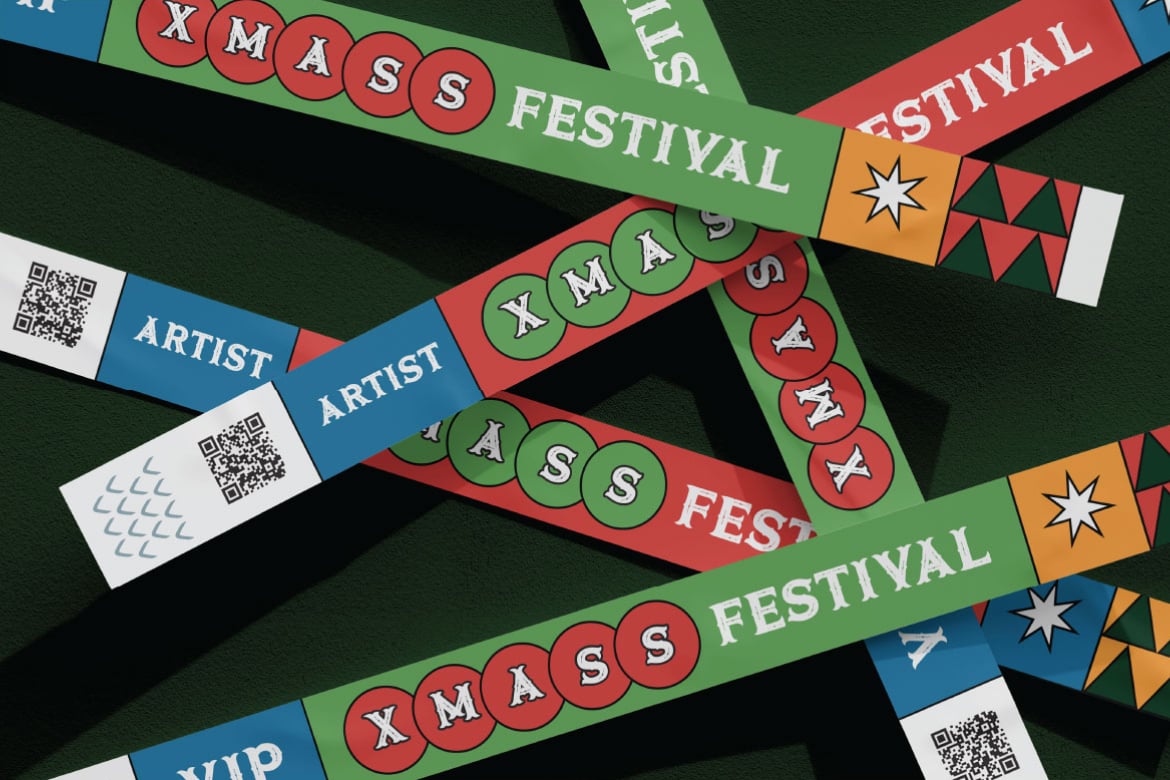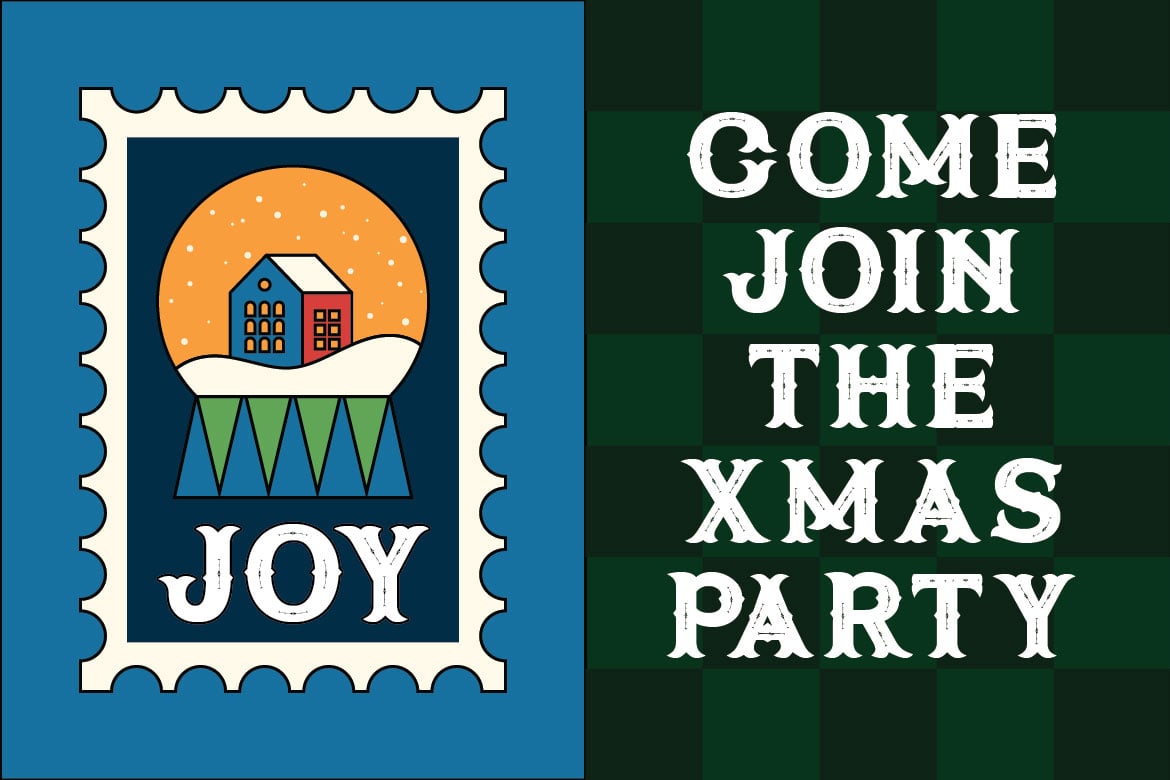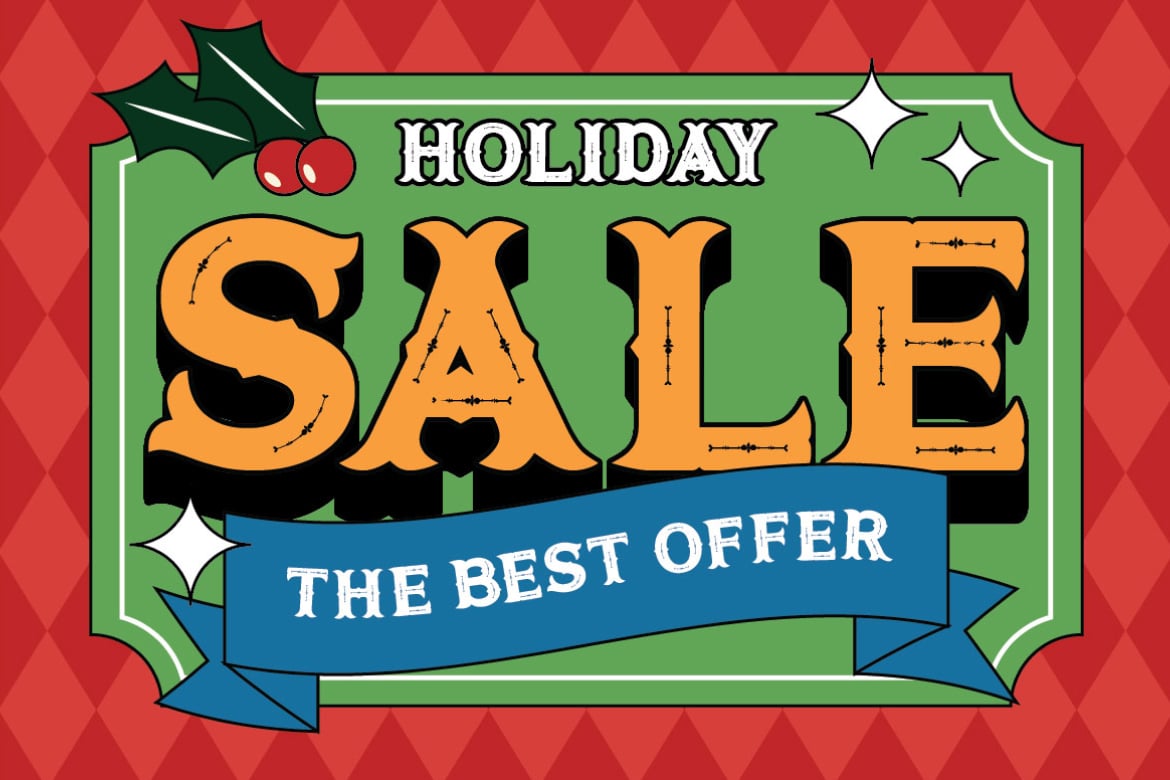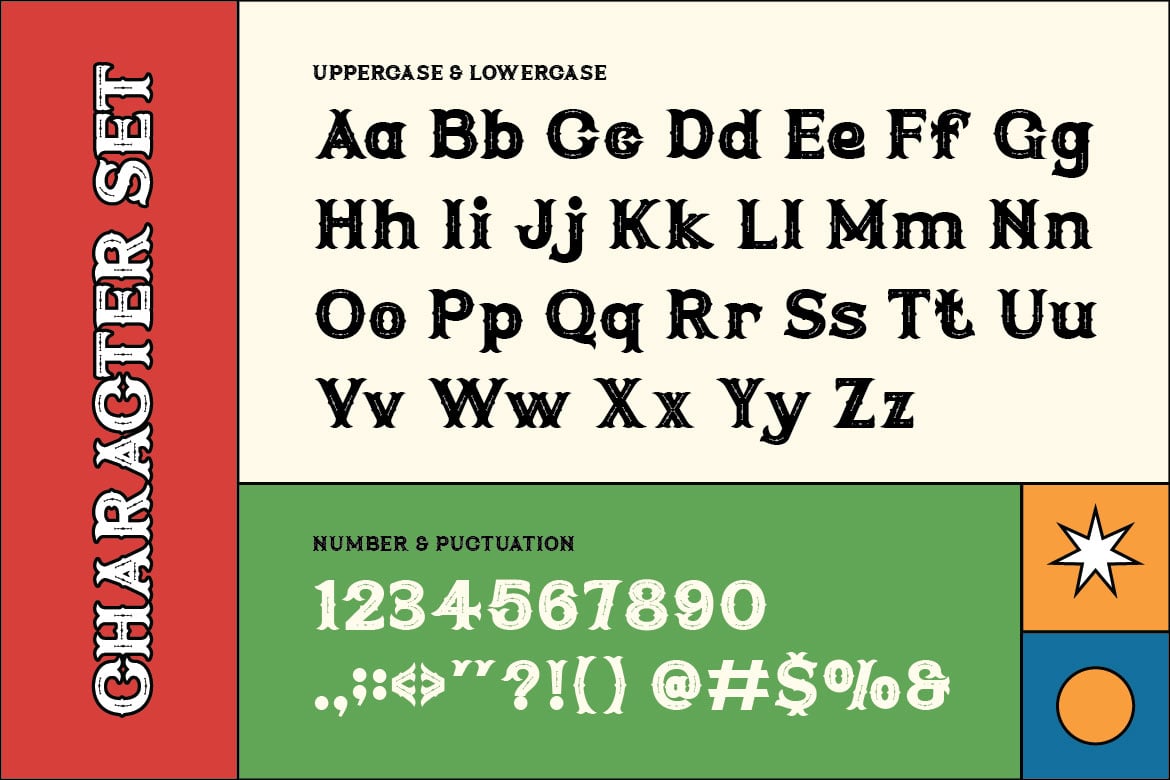
Crimson Night - Christmas Font
Crimson Night is a rustic Christmas display font with a bold serif structure and distressed textures, inspired by classic holiday signage and vintage winter prints. The font combines festive charm with a handcrafted aesthetic, making it ideal for nostalgic holiday themes.
Featuring uppercase and lowercase letters, punctuation, symbols, and numerals, Crimson Night works beautifully across print and digital formats. Whether you're designing Christmas cards, product labels, event posters, or cozy branding, this font delivers warmth and character with every letter.
Relevance and Use Cases is perfect for holiday branding, vintage-style Christmas cards, festive signage, rustic gift packaging, holiday labels, cozy café menus, event invitations, Christmas poster design, social media holiday graphics, nostalgic print ads, winter product branding, themed merchandise, retro holiday campaigns
Main Features
• Uppercase & Lowercase
• Numeral & Punctuations